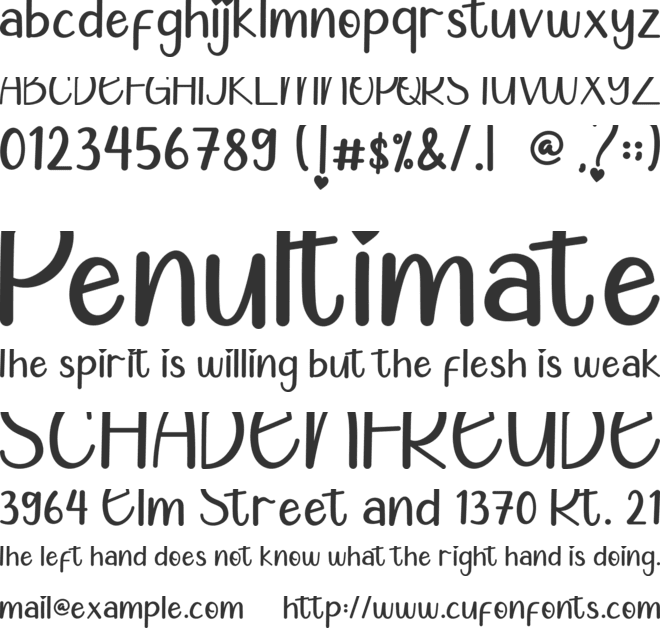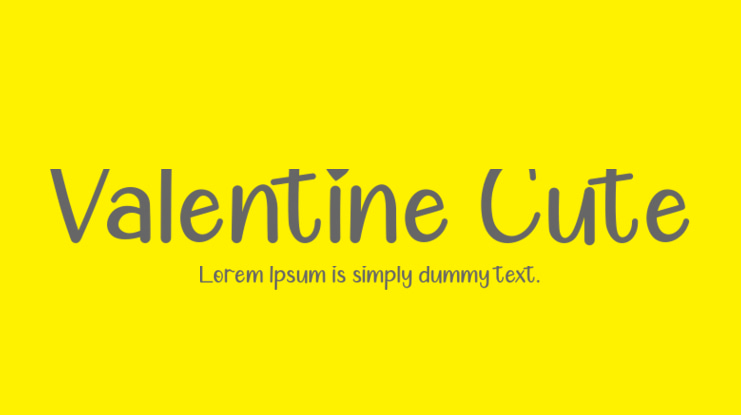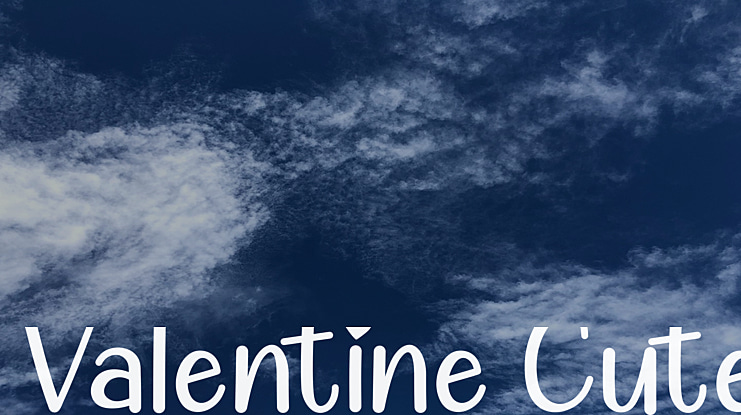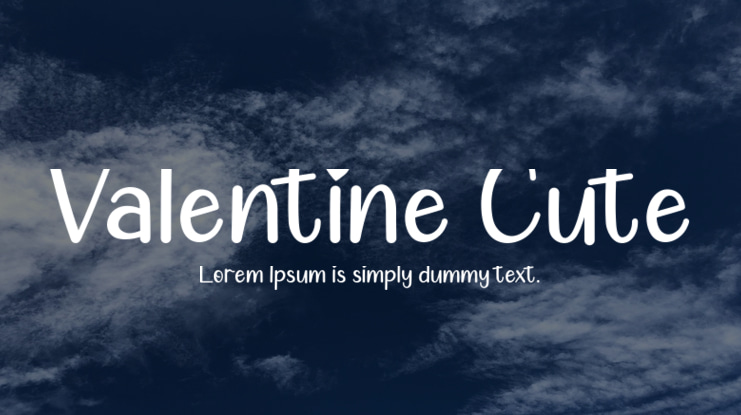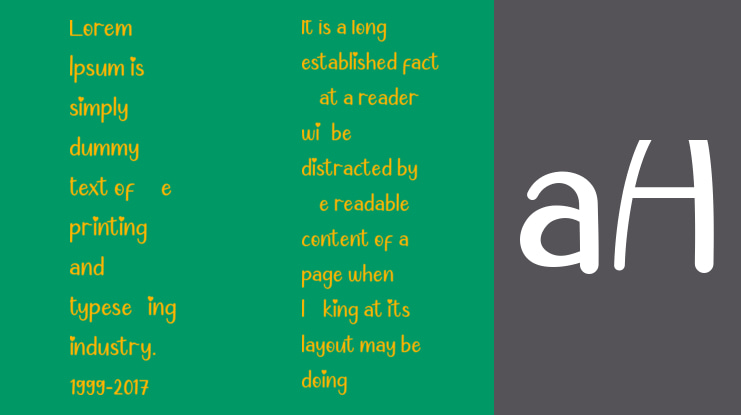
Valentine Cute Font
AEN Creative Studio 2020
Valentine Cute is a quirky display font featuring lovely ornaments. This font is perfect for valentine themed designs, especially when combined with pink or bright colors. It is PUA encoded which means you can access all of the glyphs and swashes with ease!